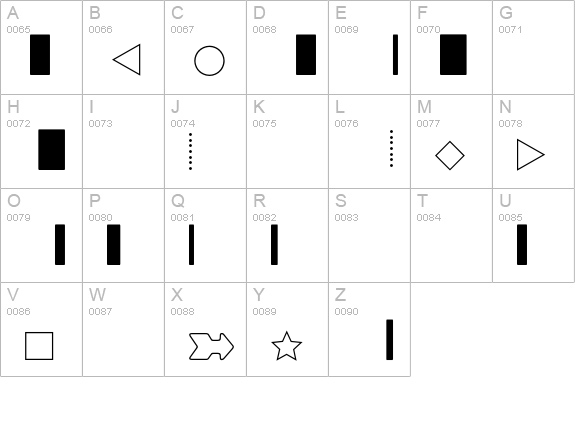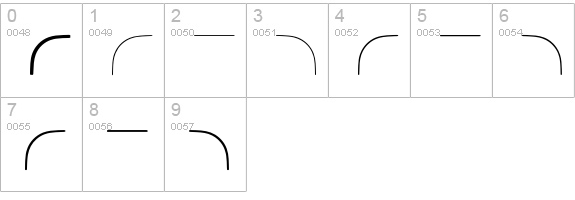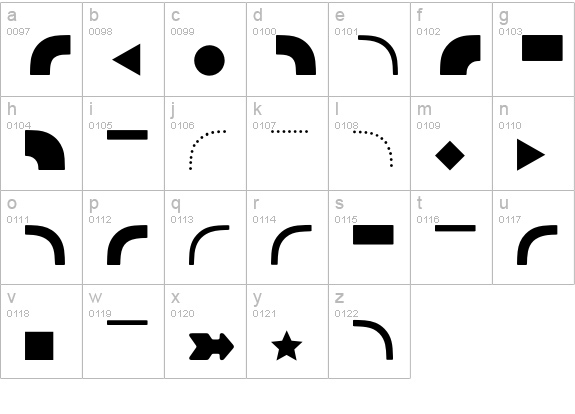
Runde Ecken 1 Font Details
Runde Ecken 1 font is a versatile and modern typeface that adds a touch of softness and elegance to any design. With its rounded corners and clean lines, this font is perfect for creating a friendly and approachable look. Whether you are designing a logo, website, or print materials, Runde Ecken 1 font will stand out and make a lasting impression. Best of all, Runde Ecken 1 font is completely free to download at FontsMarket.com. This means you can easily access this stylish font for all your projects without breaking the bank. Don't miss out on the opportunity to enhance your designs with the sleek and contemporary Runde Ecken 1 font. Download it today and let your creativity shine!